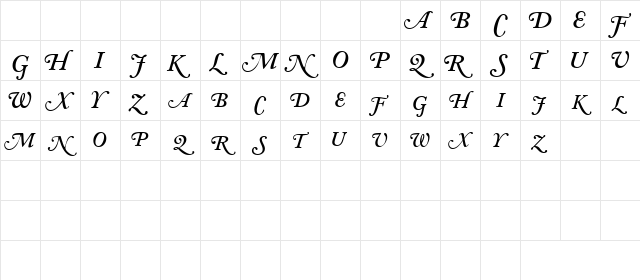
CaslonSwashSCapsSSK SemiBoldItalic
Design Context for CaslonSwashSCapsSSK
CaslonSwashSCapsSSK flows with the natural rhythm of handwritten lettering, making it ideal for designs that call for warmth and personal expression. Its bold stroke weight gives it real presence on the page.
Font Pairing: Combine CaslonSwashSCapsSSK with a simple geometric sans for maximum contrast - the tension between flowing curves and clean structure is a classic typographic pairing.
Pro Tip: Use CaslonSwashSCapsSSK for short runs of text - names, titles, or taglines. Extended body copy in script faces tires the eye quickly.